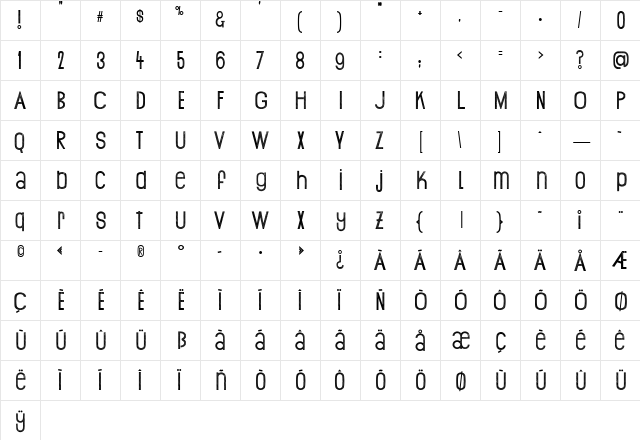
Print Ogresse Regular
| Foundry | Paintblack |
| Designer | paintblack |
Design Context for Print Ogresse Typeface
Print Ogresse takes a measured approach to typography — its balanced proportions and neutral character make it a reliable workhorse for both digital and print work.